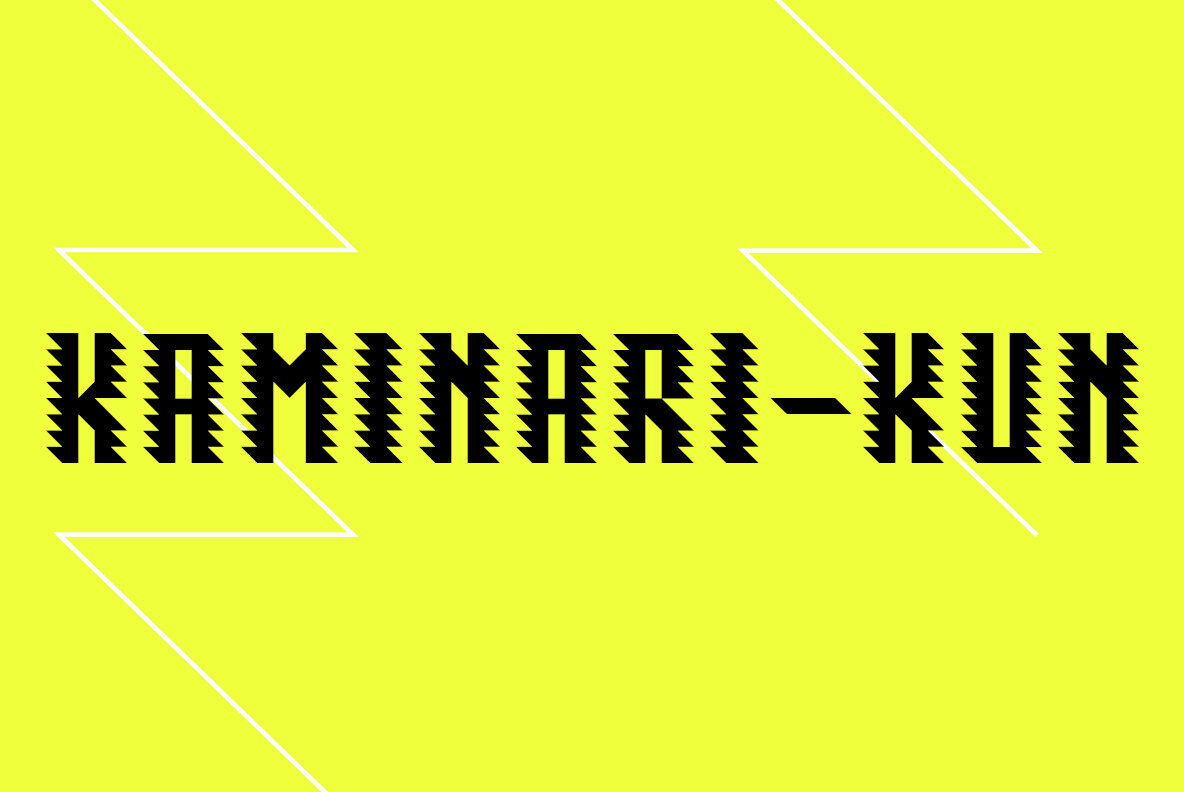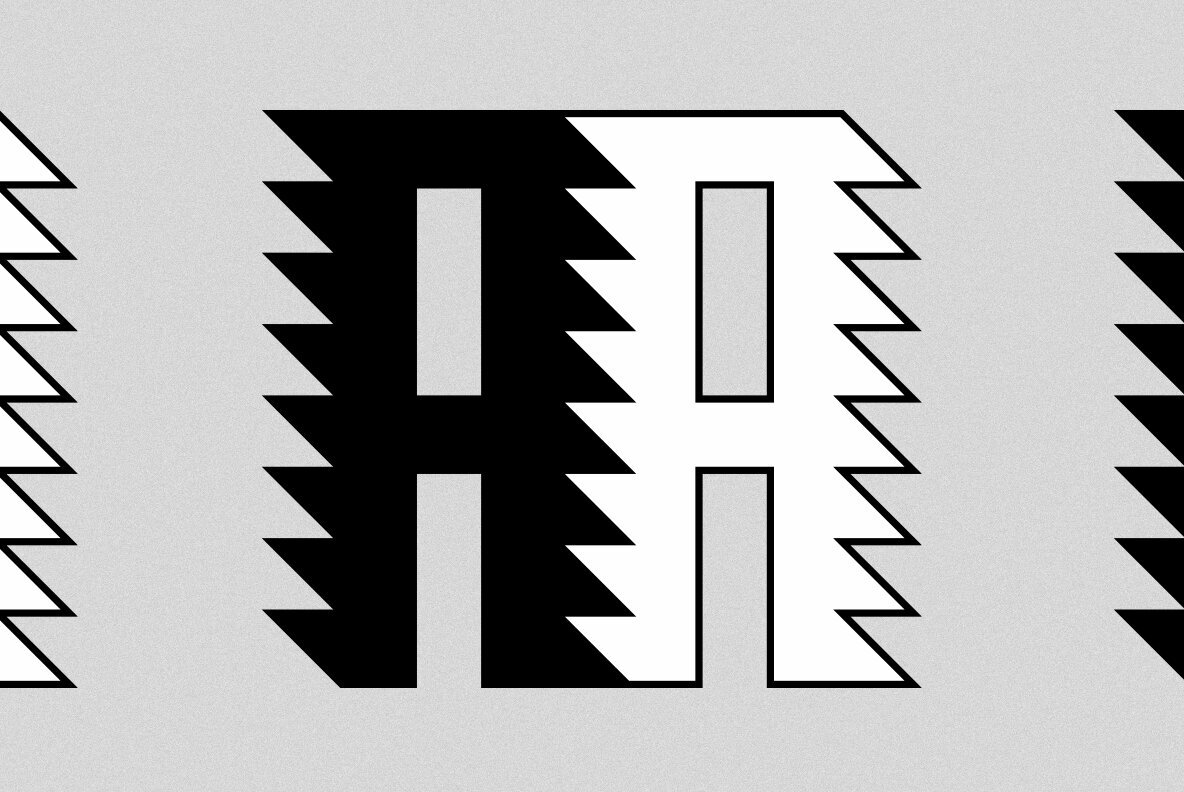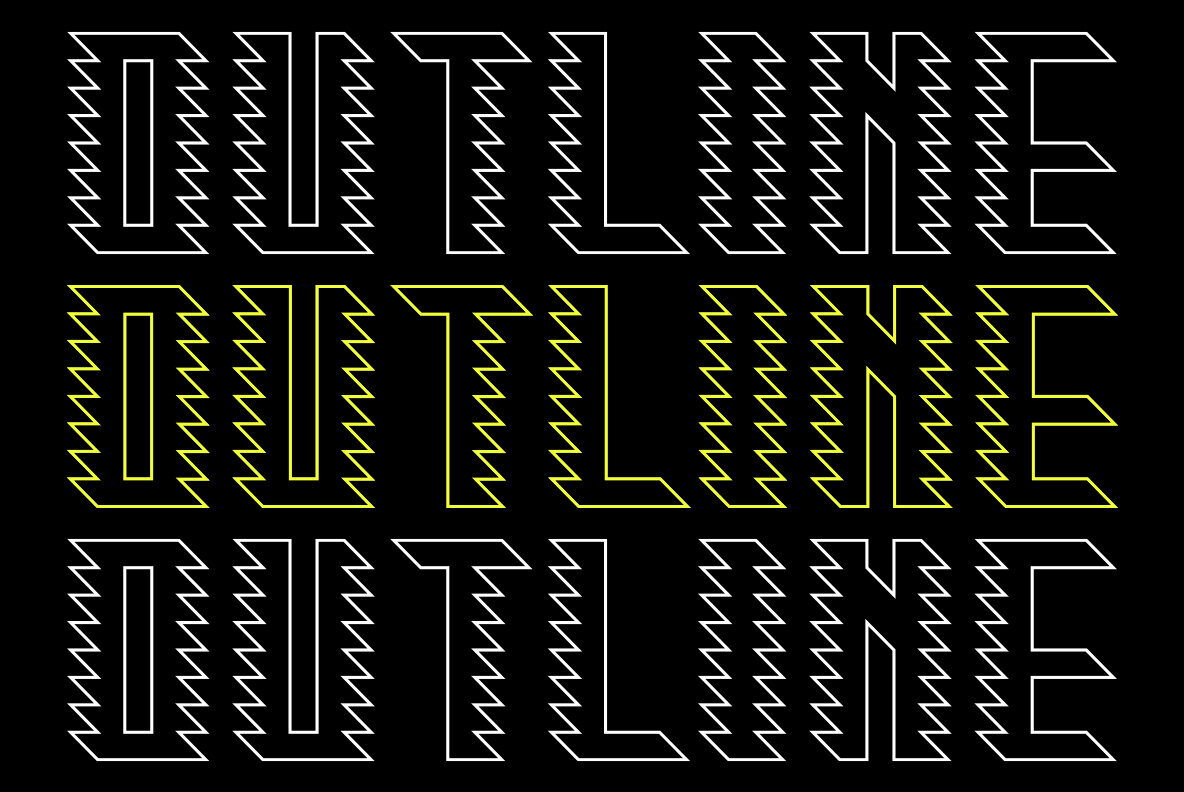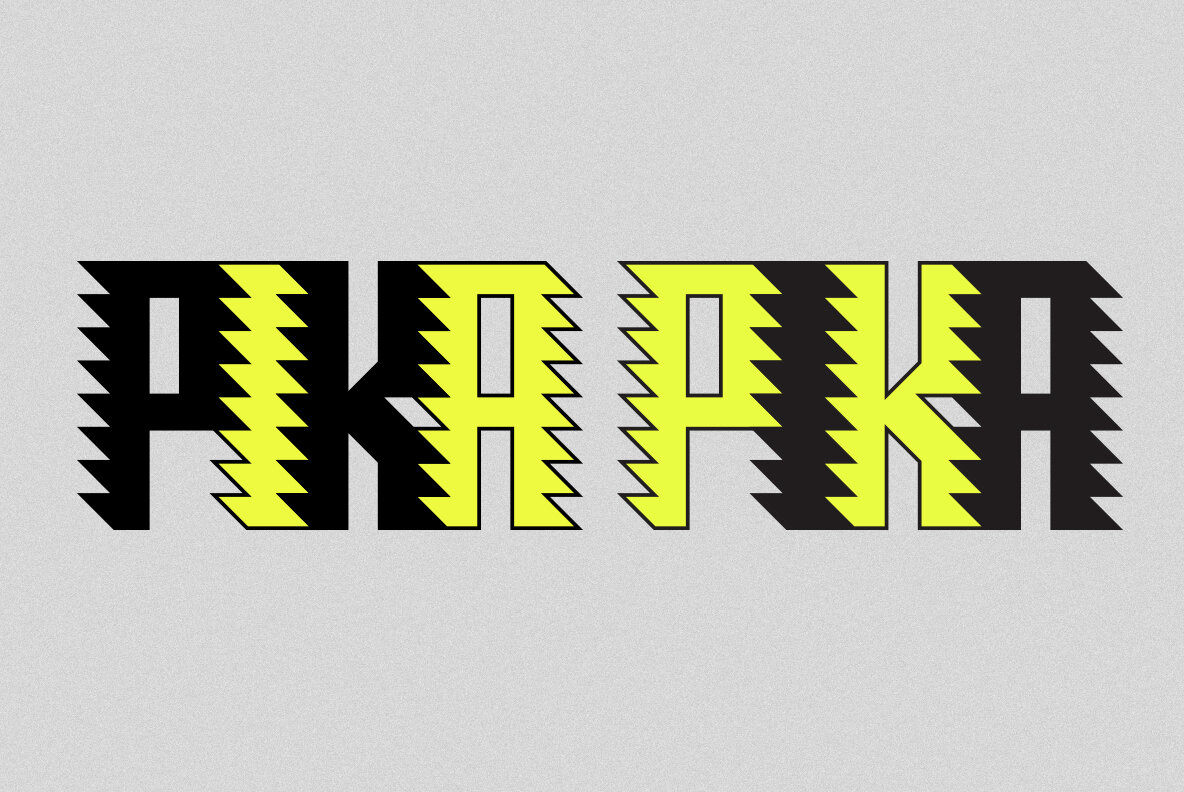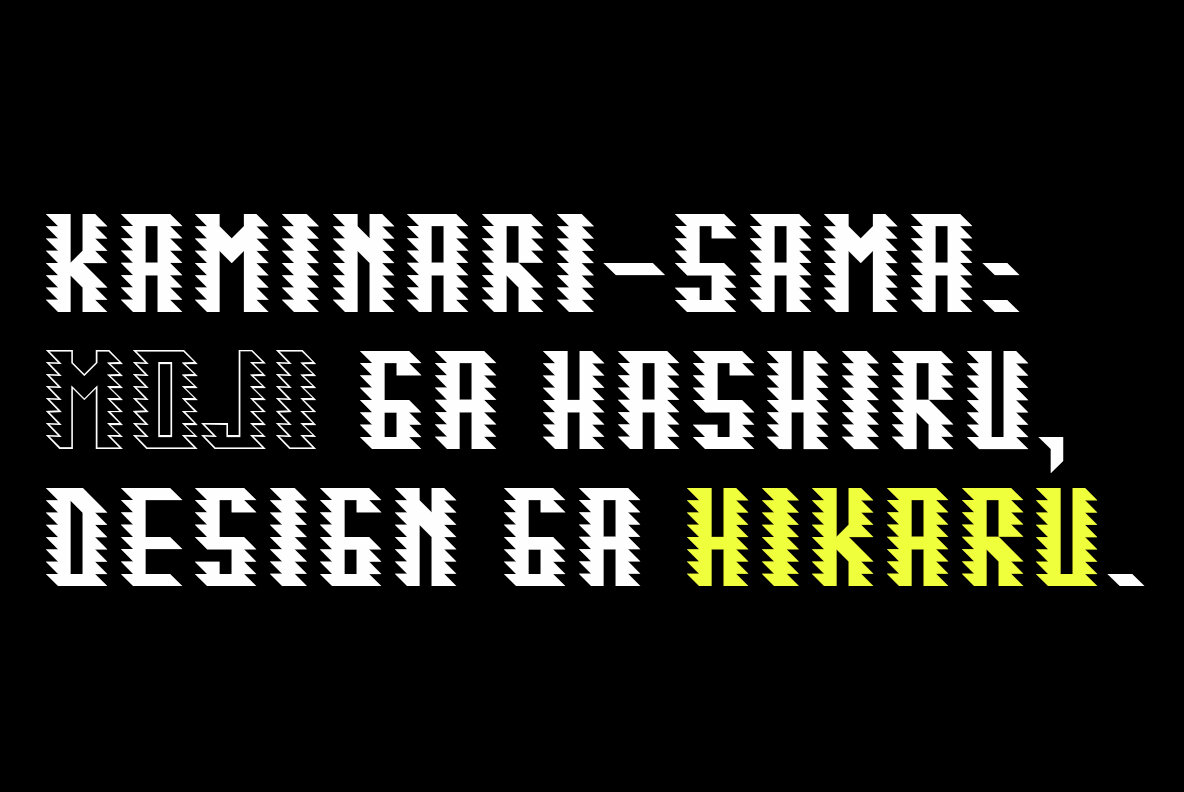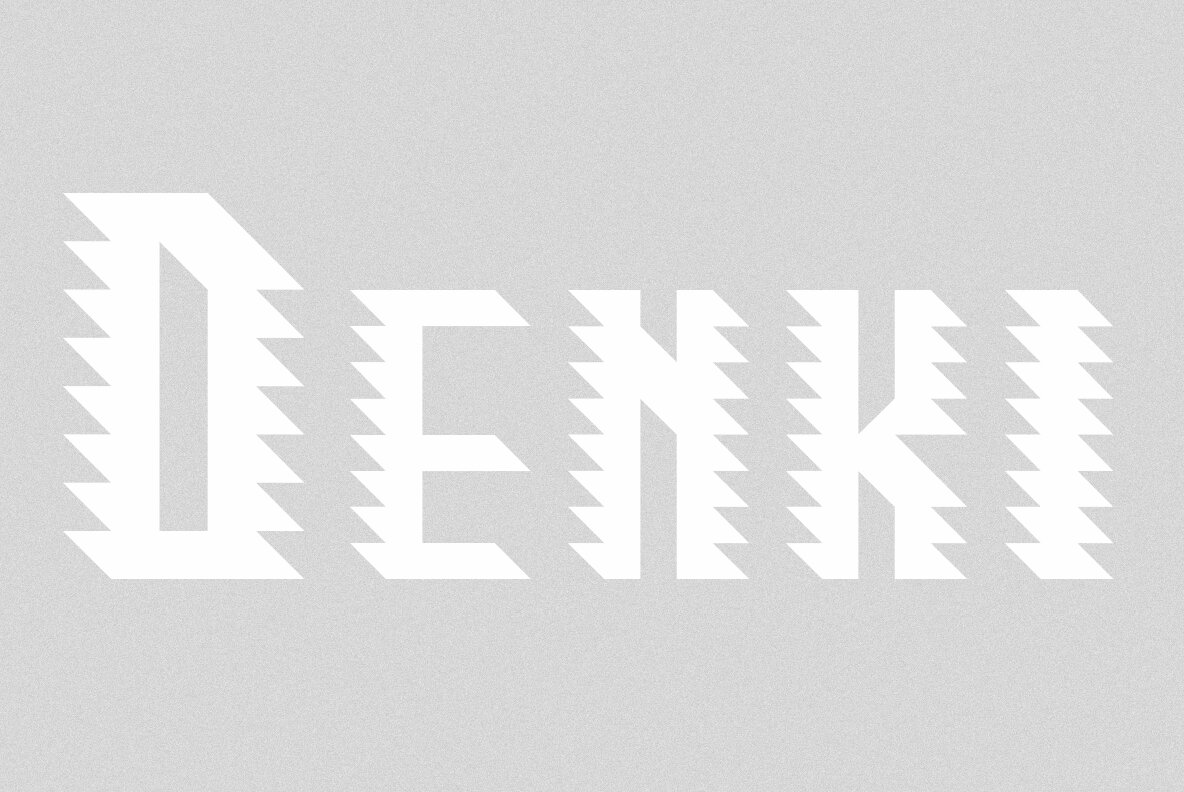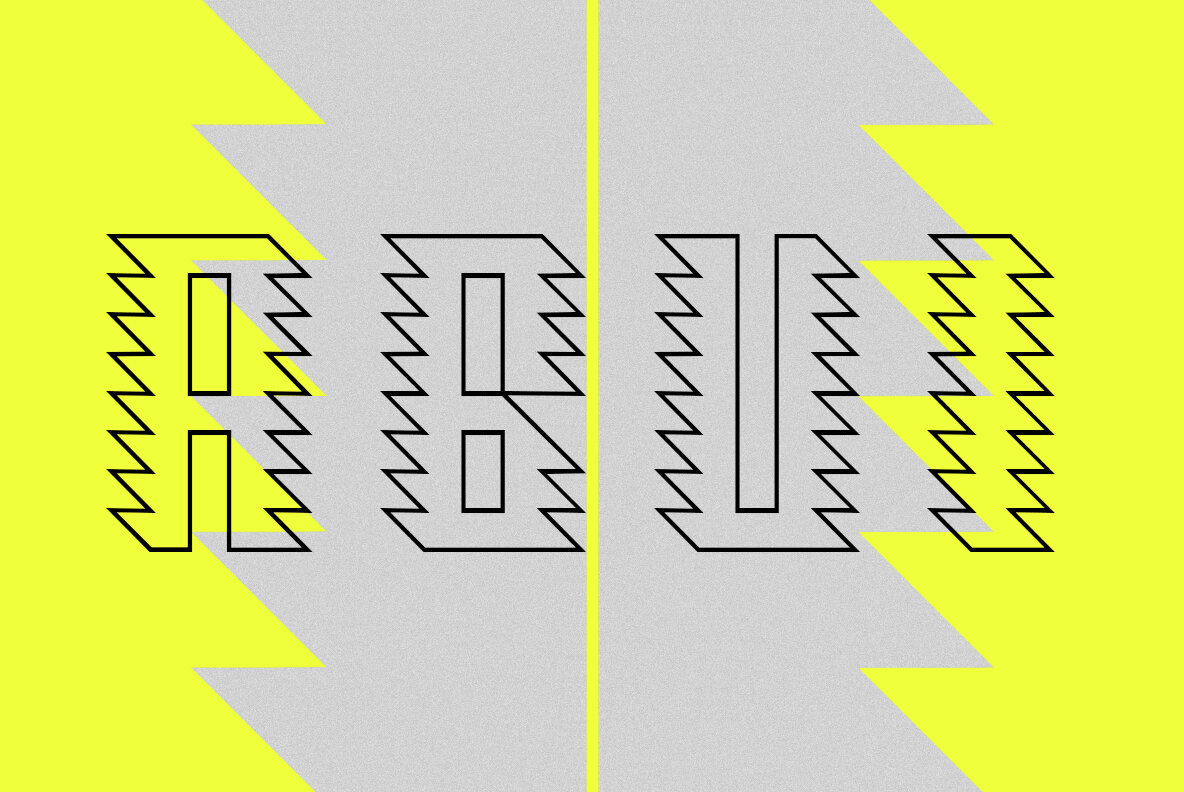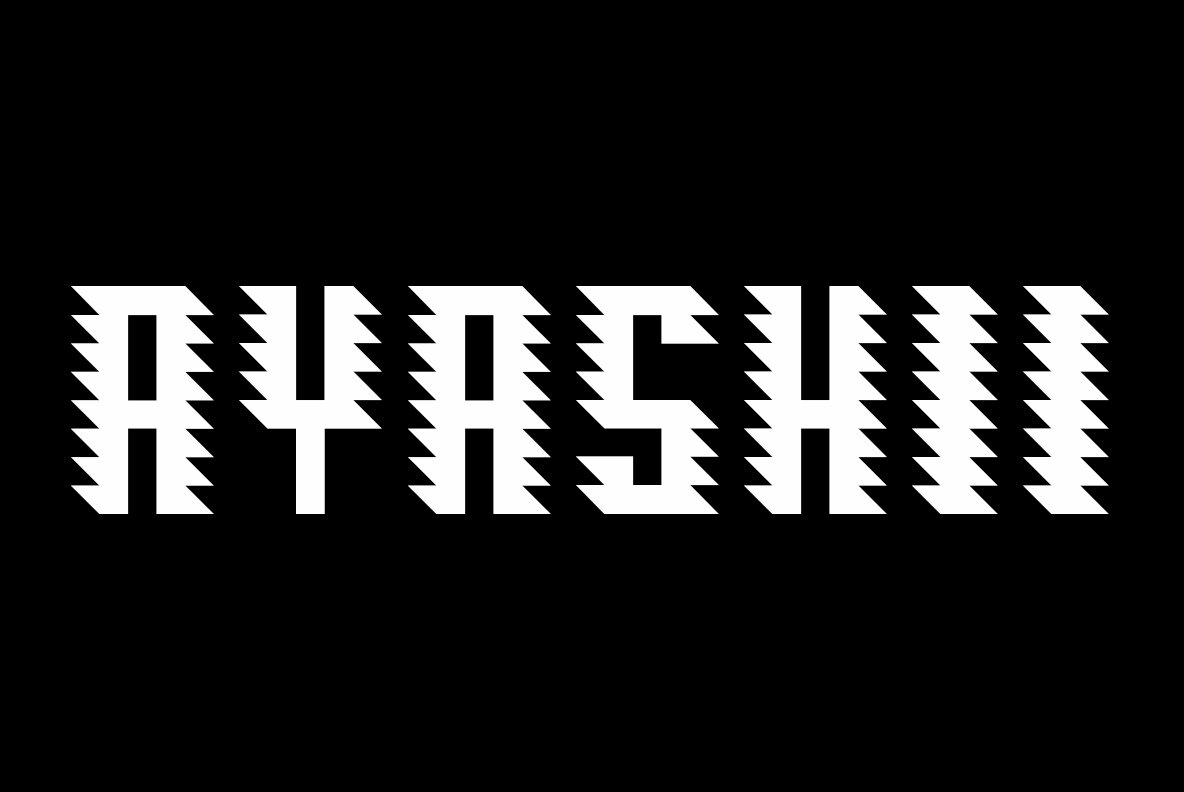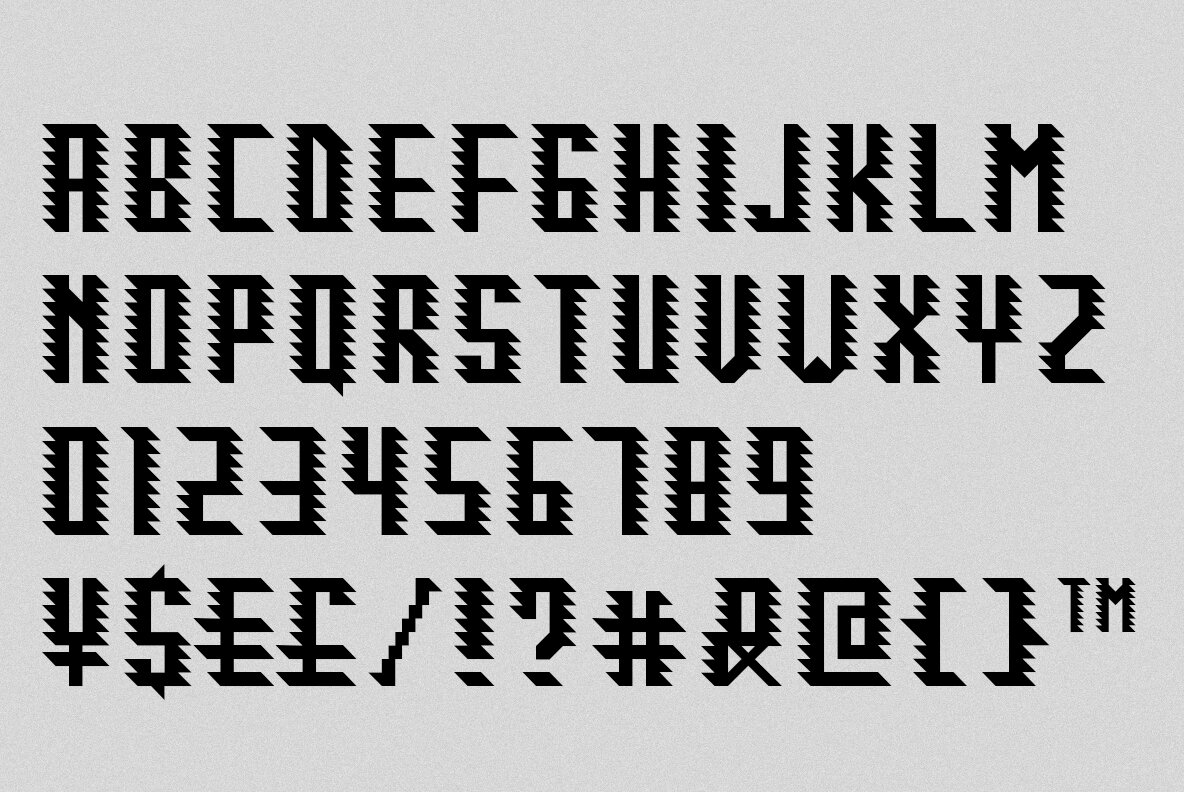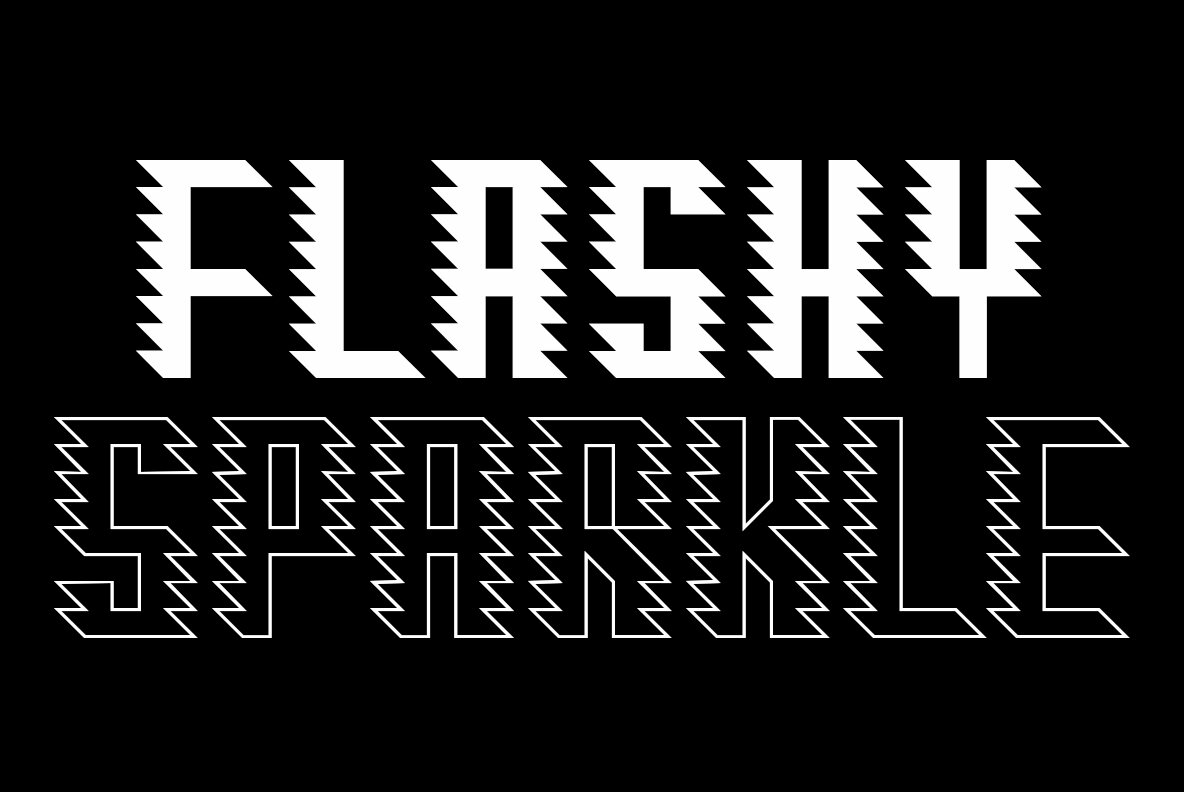
Kaminari-Kun
Foundry: Julmeme
Kaminari-Kun is a typeface that has a very strong and unique impact. With its iconic saw-toothed design, characters can fit into each other and can be associated to create an modern and electric design. Applicable for any type of graphic design, especially for posters and logotypes.